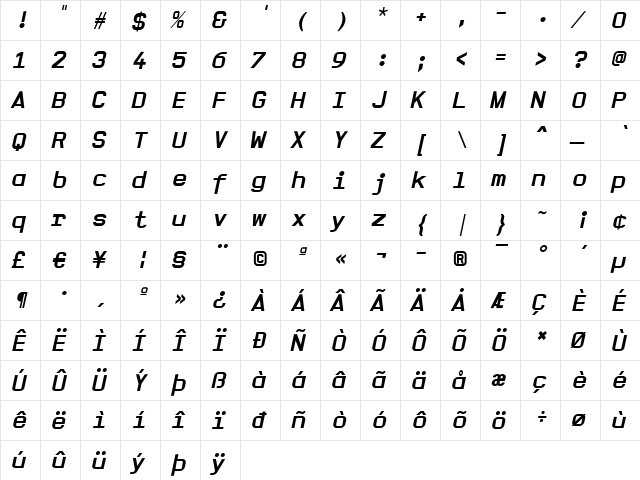
Office Bold
Design Context for Office Typeface
Office is a composed and adaptable typeface that performs quietly and consistently across a wide range of design contexts. Its bold stroke weight gives it real presence on the page.